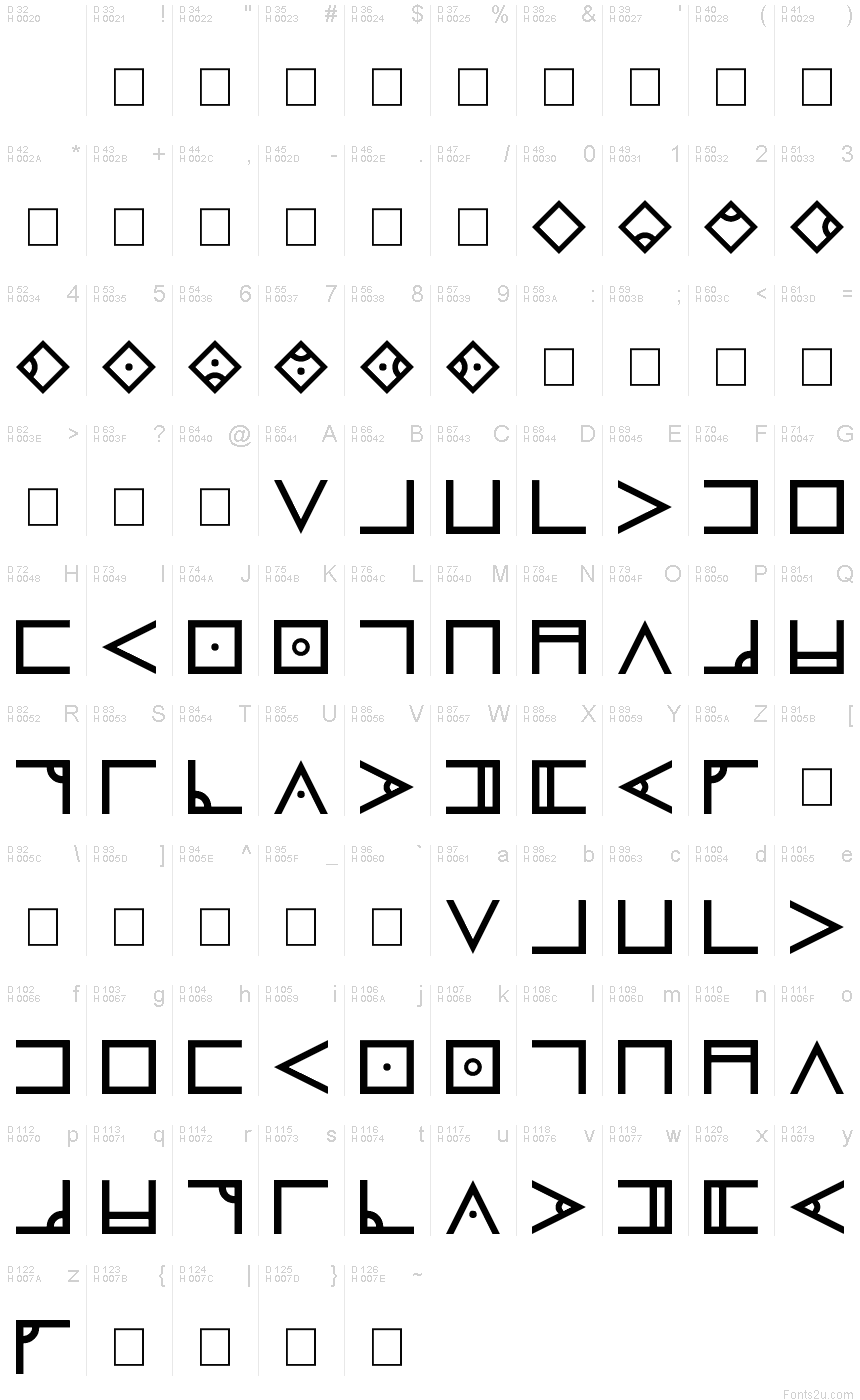
Nug-Soth
Daniel U. Thibault
A freeware ancient/fantasy script font.
«Ye characters of Nug hold ye key to ye planes, employ ye them in ye talismanic art and in all ye sacred inscriptions»
Nug-Soth was a magician of the dark conquerors of 16 000 A.D.; victim of a mind transfer with a member of the Great Race of Yith, he was sent to 150 000 000 B.C. where he met Professor Peaslee. («The Shadow Out of Time», H. P. Lovecraft) Nug-Soth also designates a race of metallic-city-dwelling insect-mages locked in a doomed struggle against the Dholes («Visions of Yaddith», Ariel Prescott and/or Lin Carter). Neither is really connected with the Necronomicon.
This "alphabet" was invented for the (rather pitiful pseudo-esoteric) Avon edition of H. P. Lovecraft's wonderful bibliographical invention, Abdul Alhazred's Necronomicon. You can see it displayed in Dino Manzella's e-book "Forgotten Scripts" (http://www.afternight.com/runes) and elsewhere on the Web.
The digits and the letters K and U are my inventions. The original "source" stated the alphabet was used to transcribe Latin, and therefore there was no K nor U ---one was to use C and V respectively instead.
Version 1 was created on 1999-October-06 with Softy, and suffered from a number of internal deficiencies. The characters were also incorrectly proportioned.